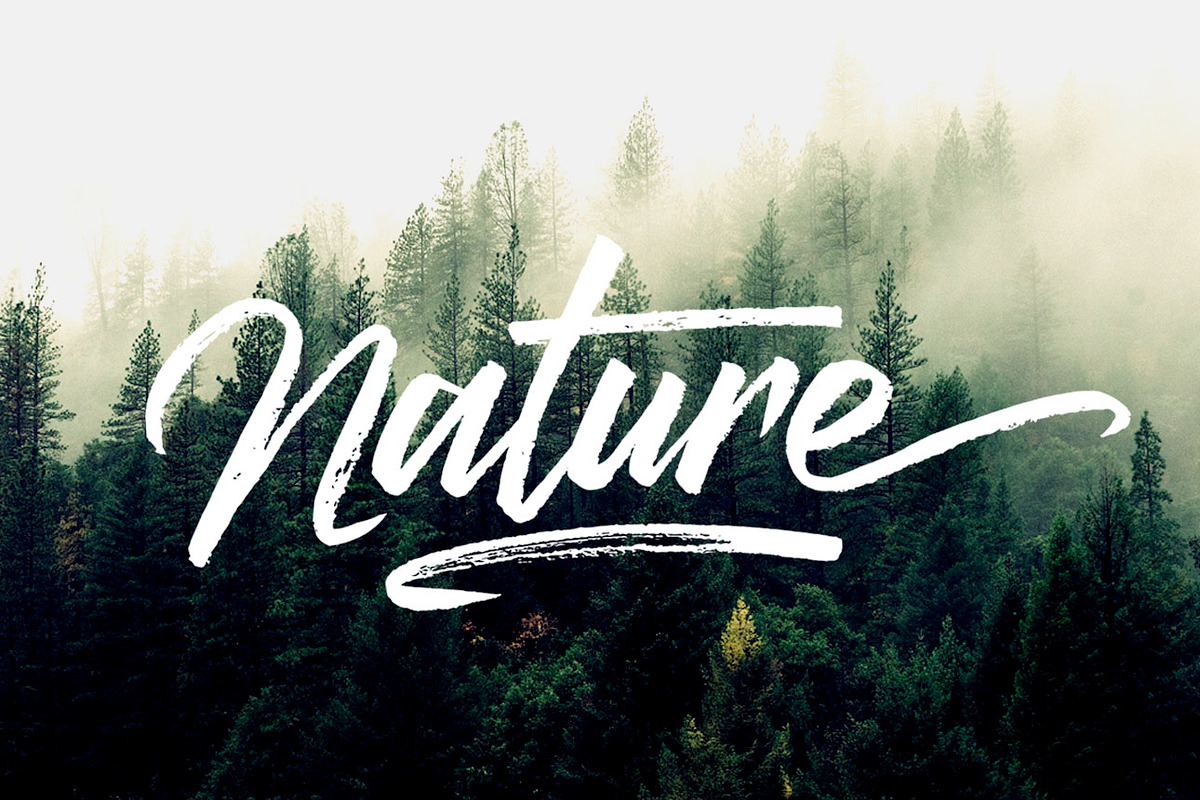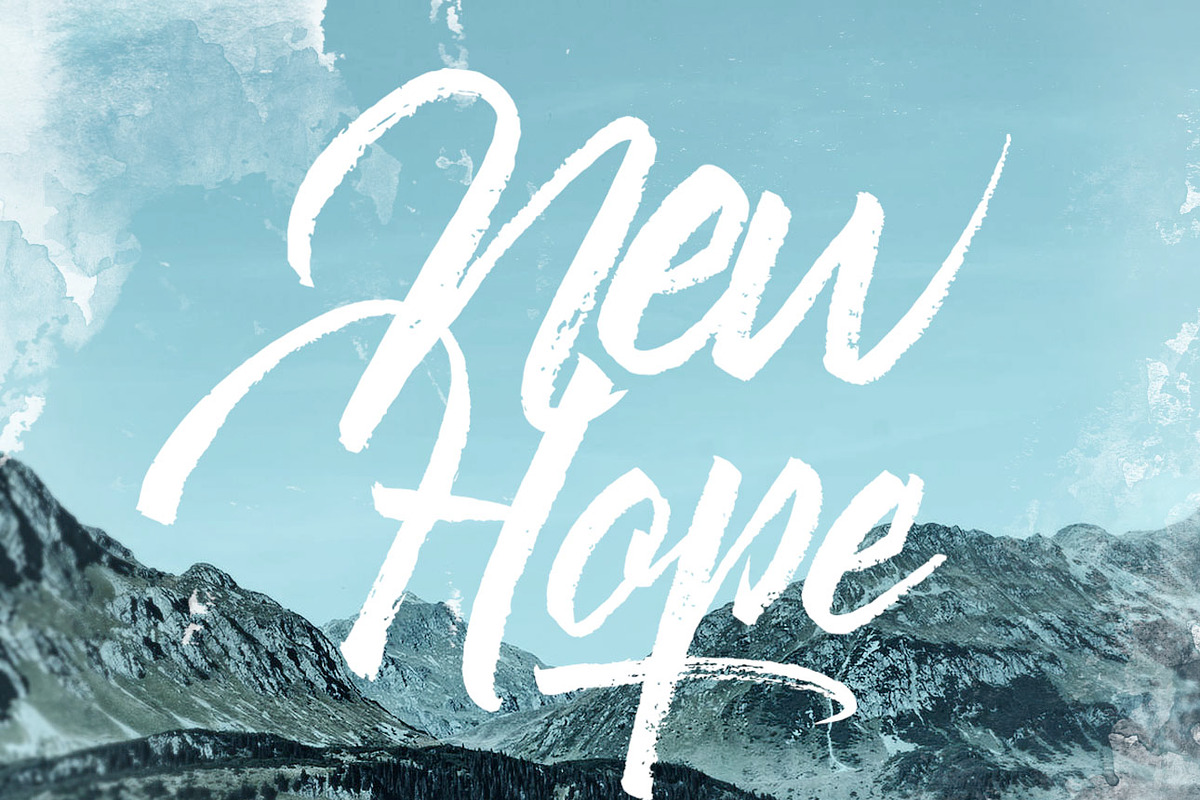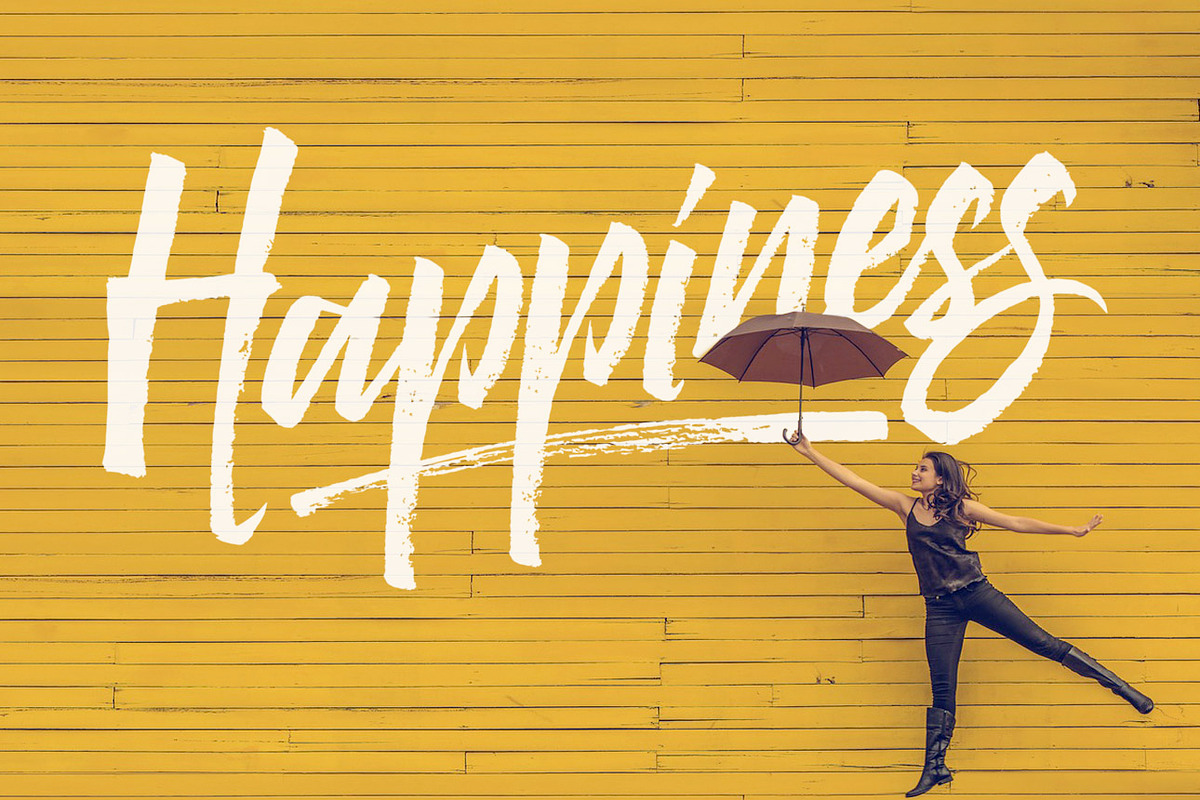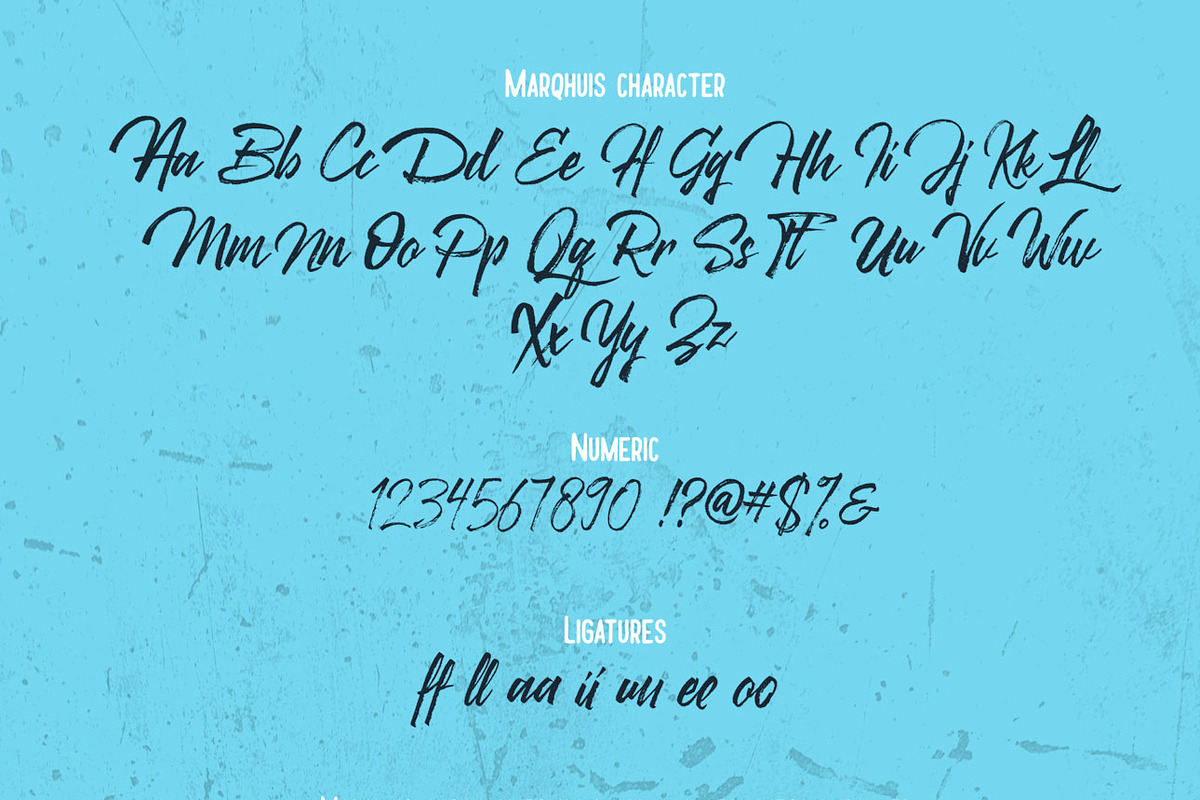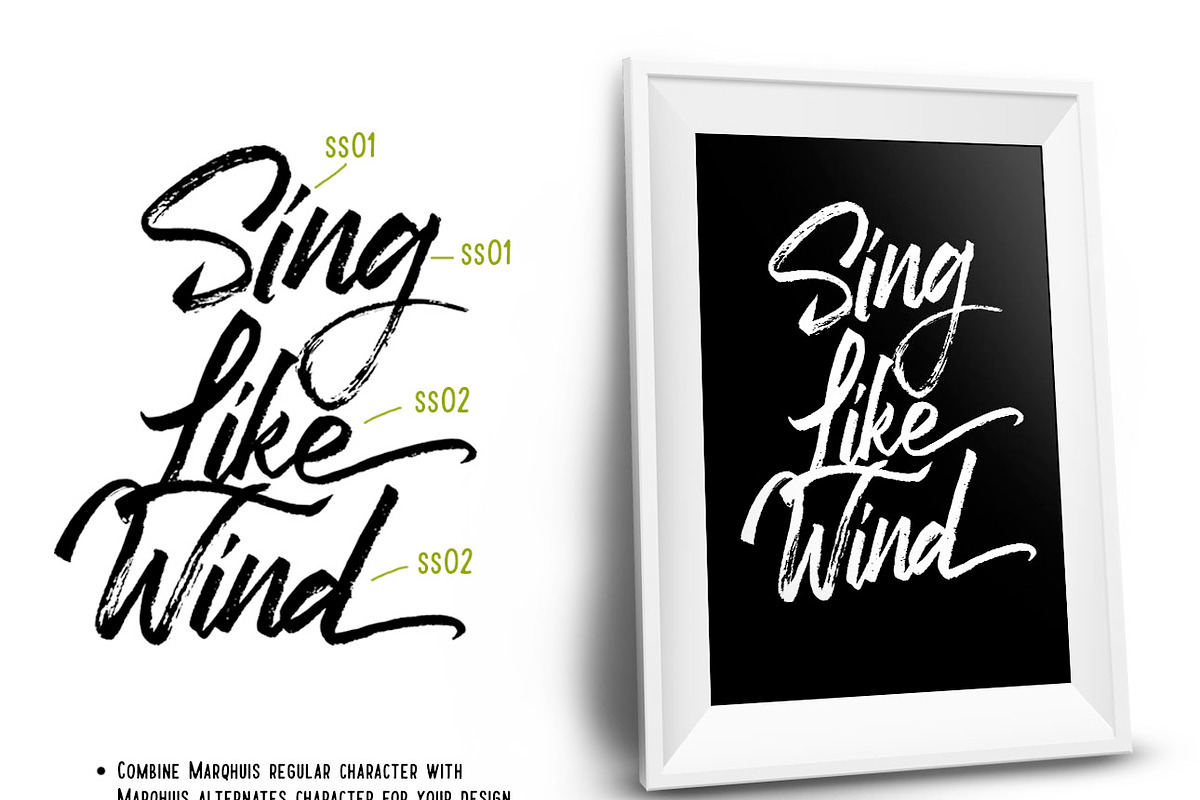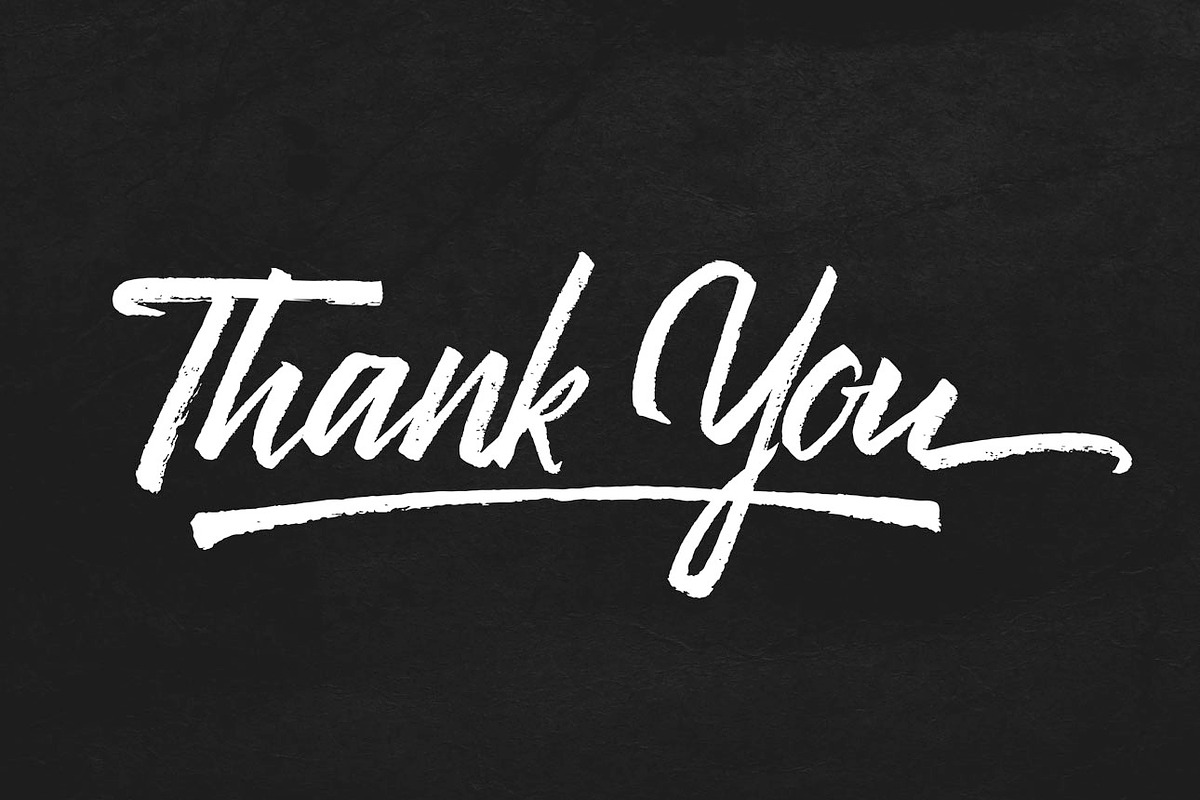
Marqhuis brush font
Marqhuis brush font by Qiwbrother Studio is a font selected for branding, posters, packaging, typography.
- Marqhuis comes with alternates character, so you can combain it with marqhuis regular character.
- Marqhuis Regular
- Marquisd Swash Regular
Why Marqhuis brush font is worth a look
Marqhuis brush font by Qiwbrother Studio fits naturally into Branding, posters, packaging, typography.